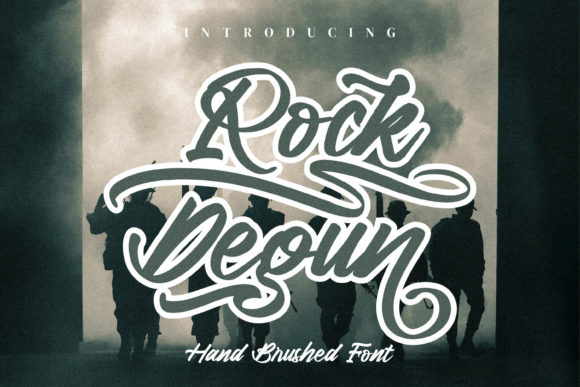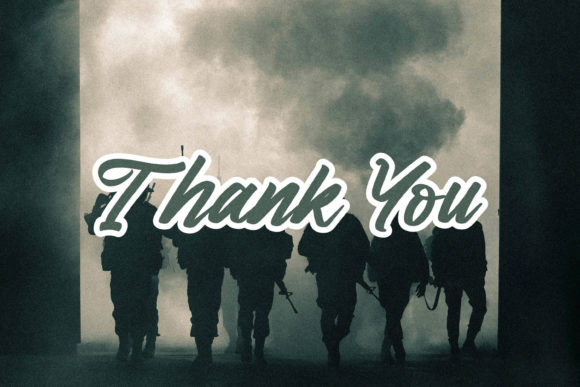
About Rock Degun Font
Rock Degun is a cool, cursive, and trendy handwritten font that adds a stylish touch to your designs. With its unique and eye-catching letterforms, Rock Degun is perfect for projects that require a fun and fashionable look.
The font’s cursive style gives it a dynamic and energetic vibe, making it suitable for various applications. Whether you’re designing logos, branding materials, social media graphics, invitations, or any other creative project, Rock Degun will add a touch of personality and flair.
One of the standout features of Rock Degun is its PUA (Private Use Area) encoding, which allows easy access to all the glyphs and swashes. This means you can effortlessly access a wide range of stylistic alternates, ligatures, and decorative elements to customize and enhance your designs.
Rock Degun is versatile and adaptable, allowing you to create unique and attention-grabbing compositions. Experiment with different letter combinations, alternate characters, and swashes to create visually appealing typography that stands out from the crowd.
Whether you’re working on a retro-inspired design, a trendy fashion project, or any other creative endeavor that requires a cool and stylish vibe, Rock Degun is a font that will elevate your work. Its handwritten look adds an authentic and personal touch, making your designs feel more engaging and relatable.
In summary, Rock Degun is a cool, cursive, and trendy handwritten font that brings a stylish touch to your designs. With its PUA encoding, you can easily access a variety of glyphs and swashes to customize your typography. Add Rock Degun to your projects that require a fun and fashionable look, and enjoy the dynamic and energetic vibe it brings to your designs.